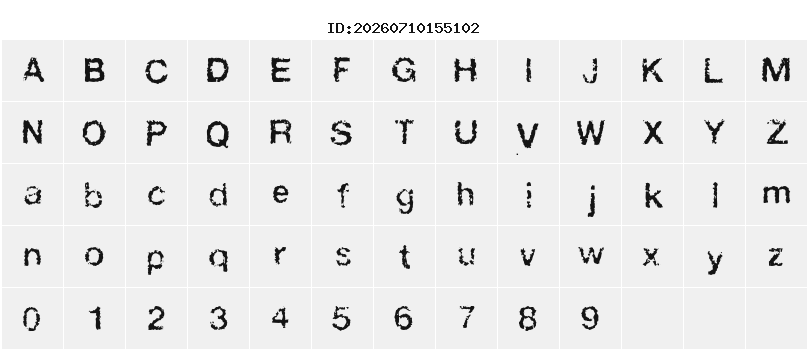
• Font Name: FAXADA
• Full Font Name: FAXADA
About FAXADA.ttf
FAXADA.ttf is a modern, elegant sans-serif font designed for ultimate readability and visual harmony. Perfect for branding, headlines, web design, and print materials.